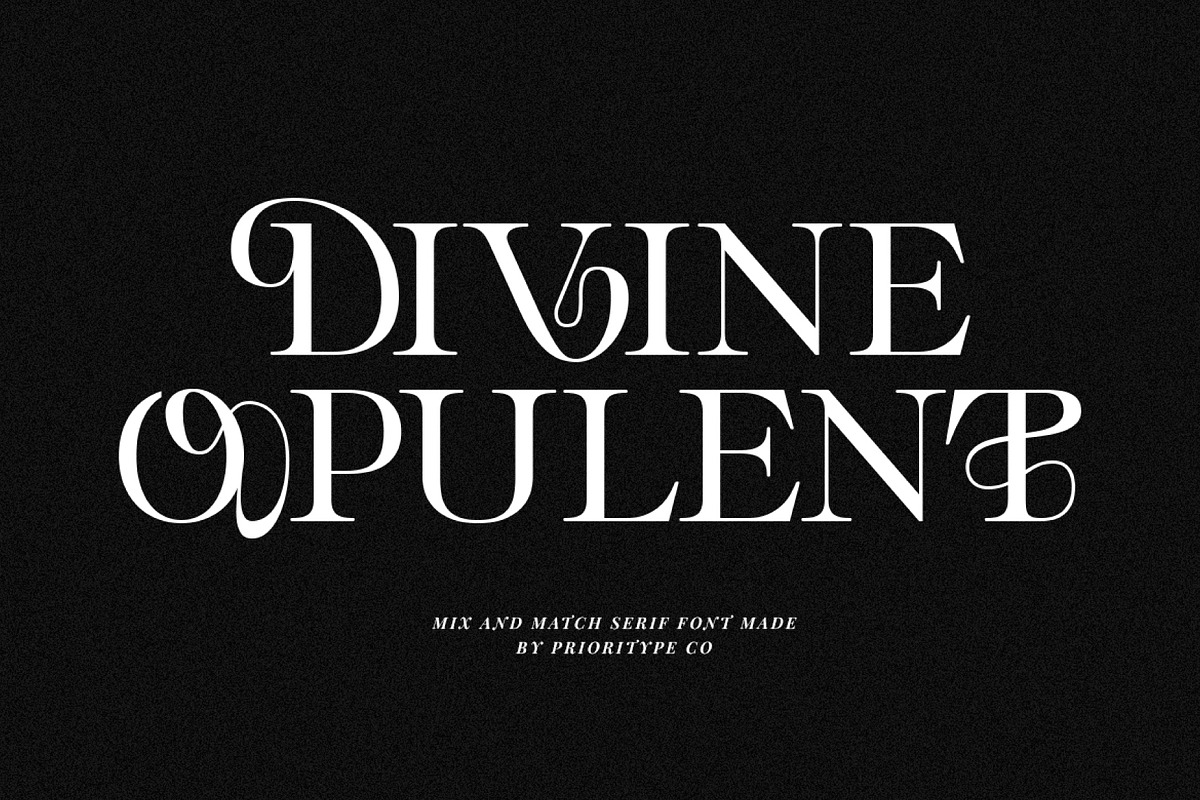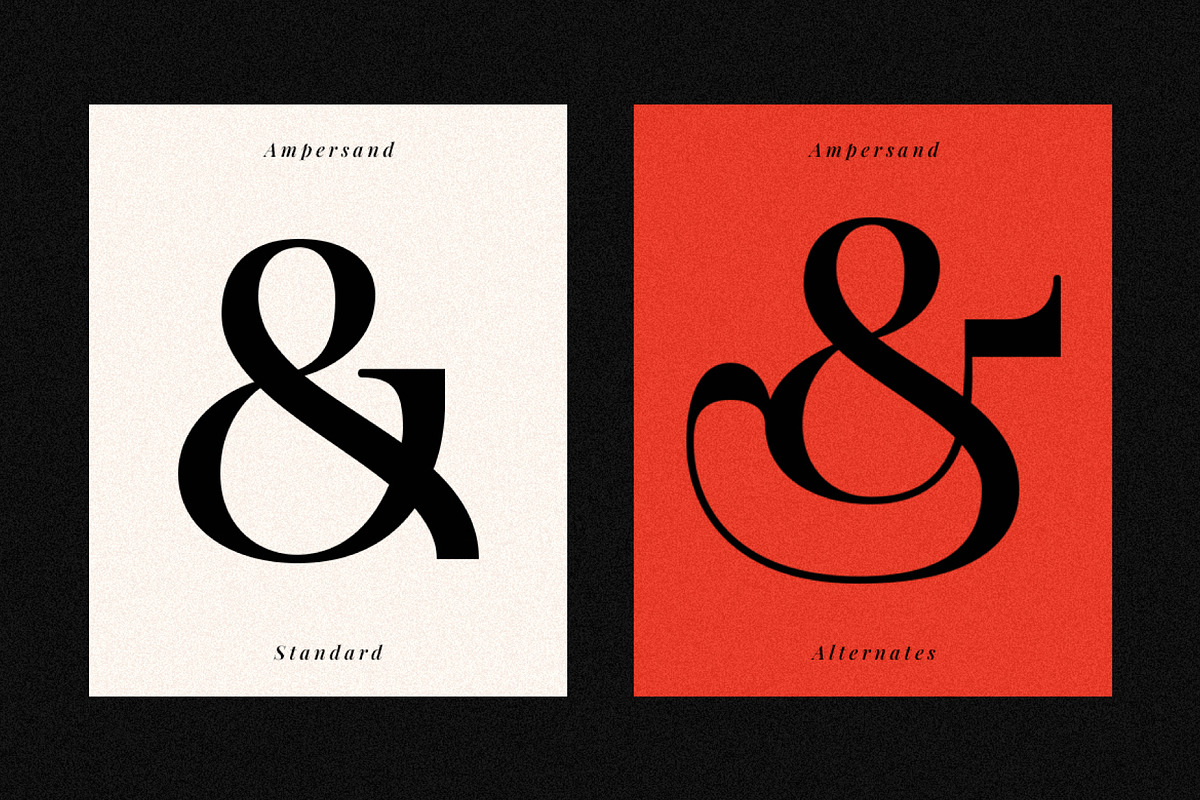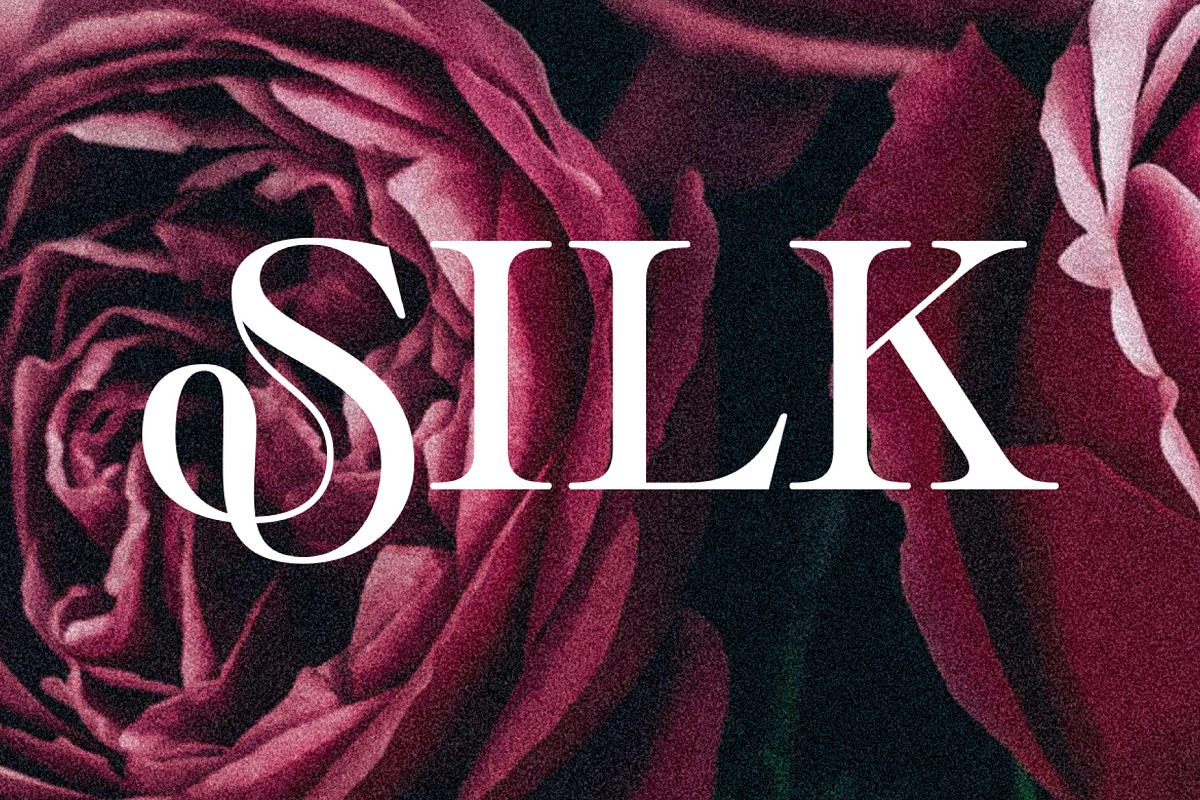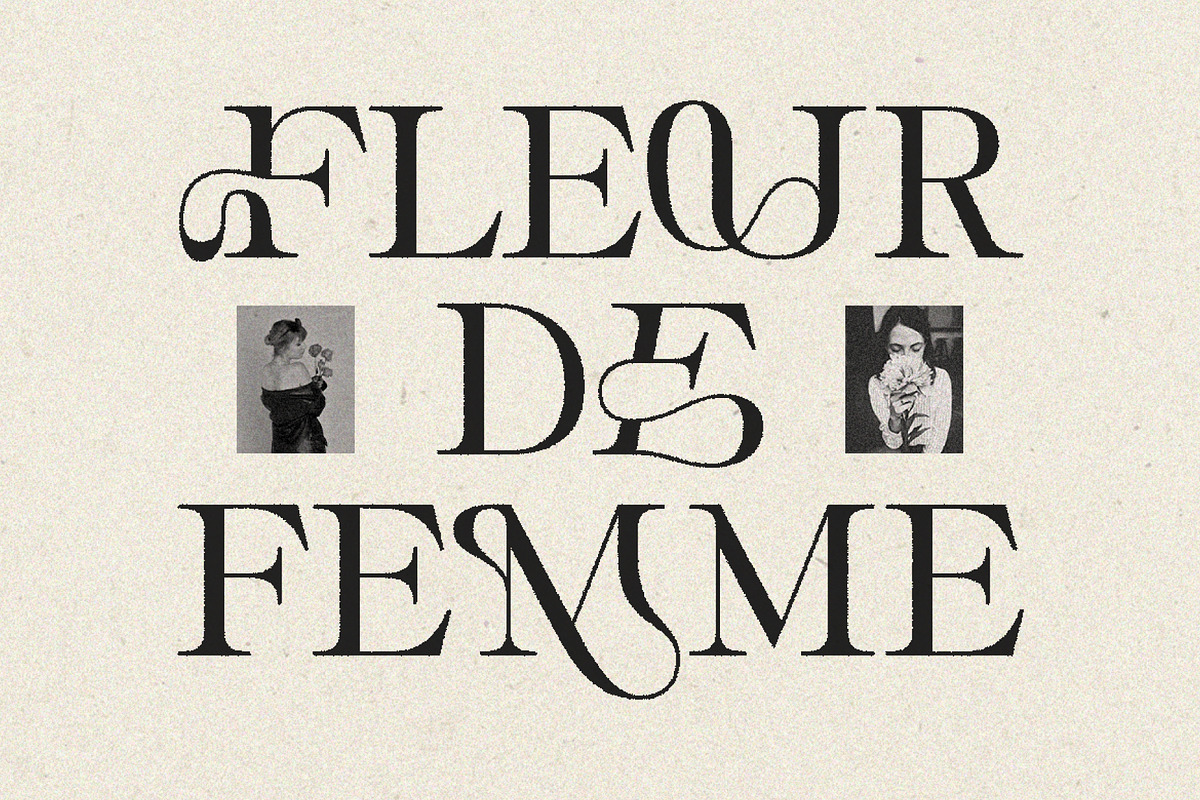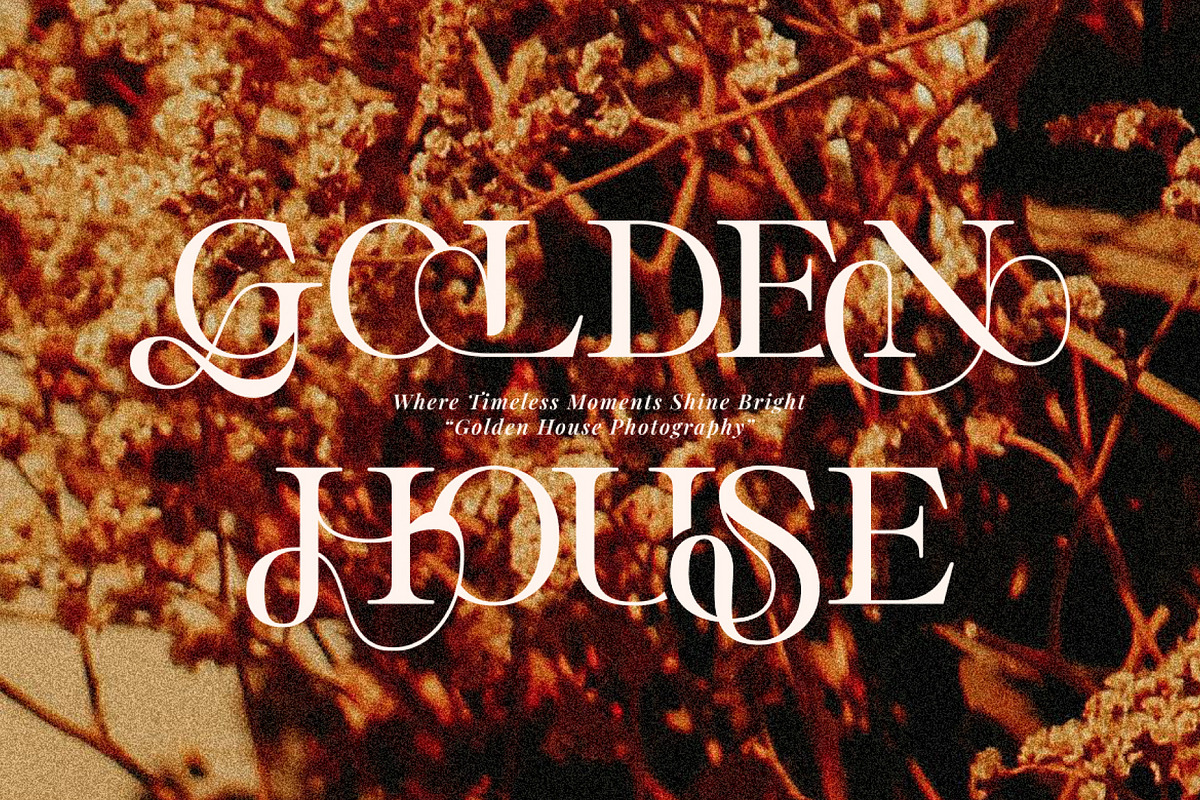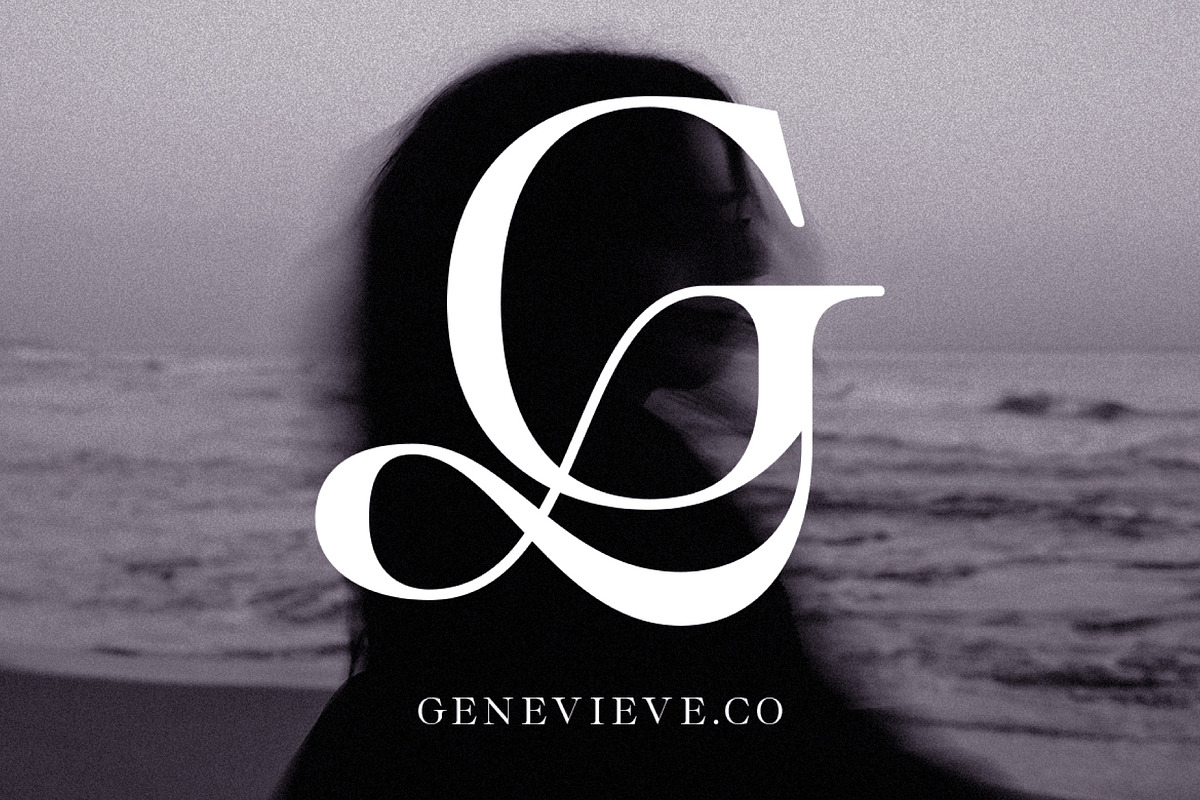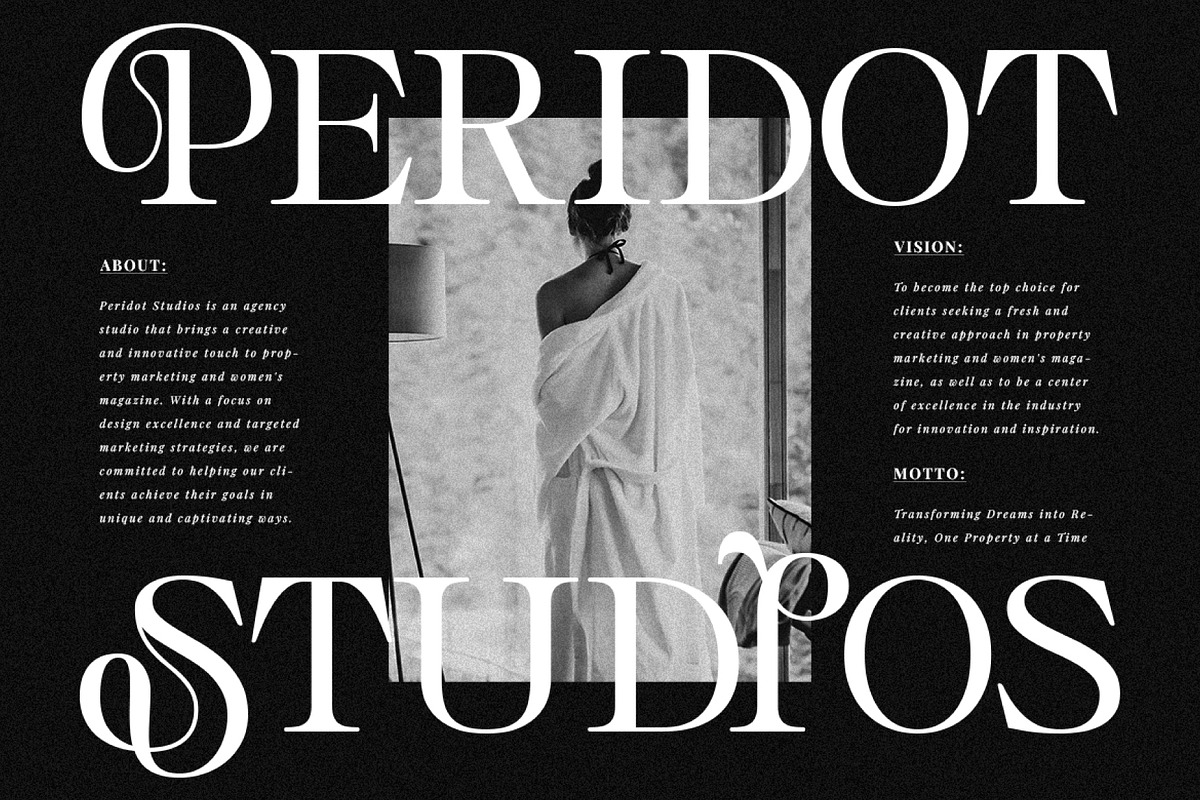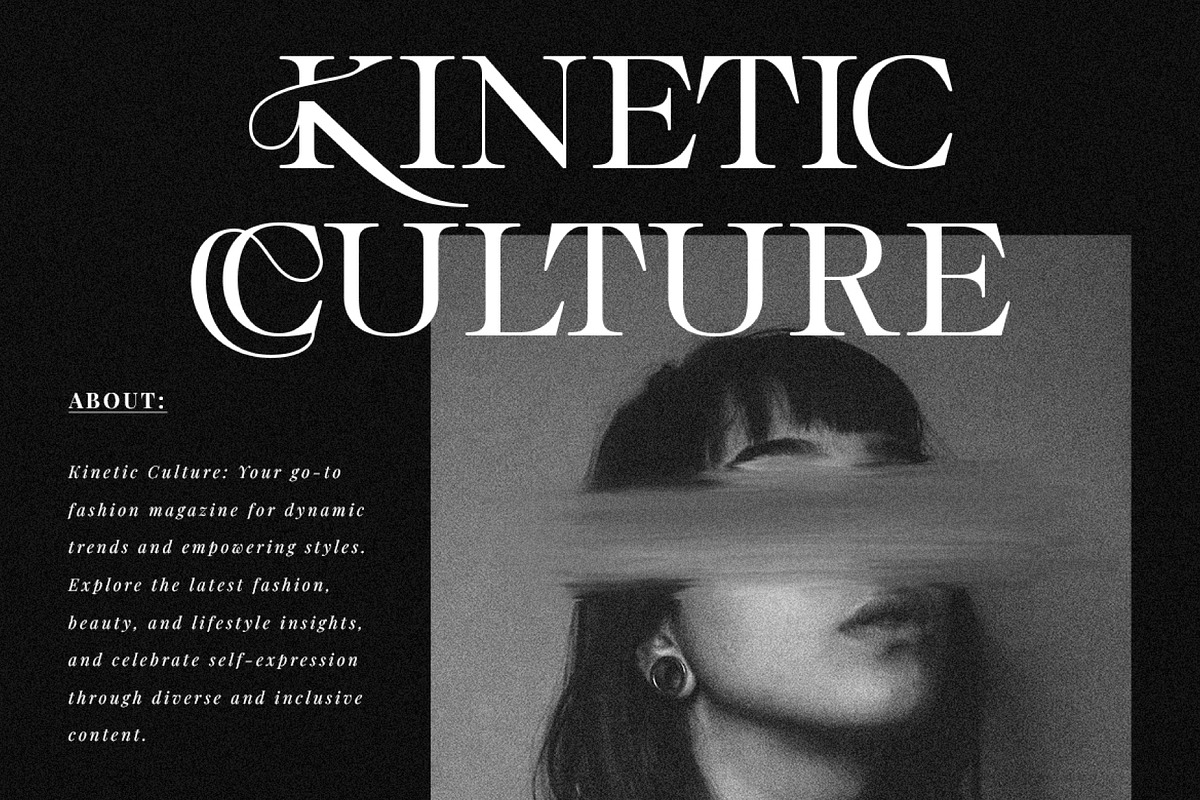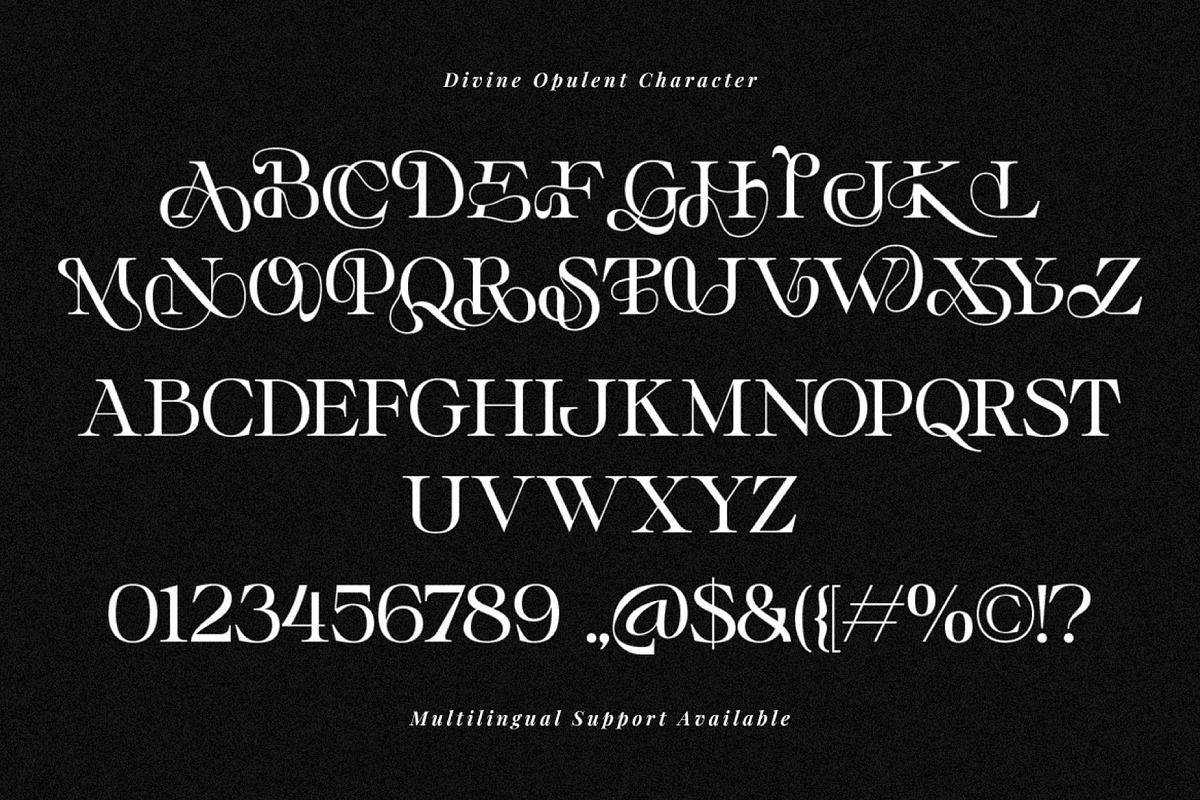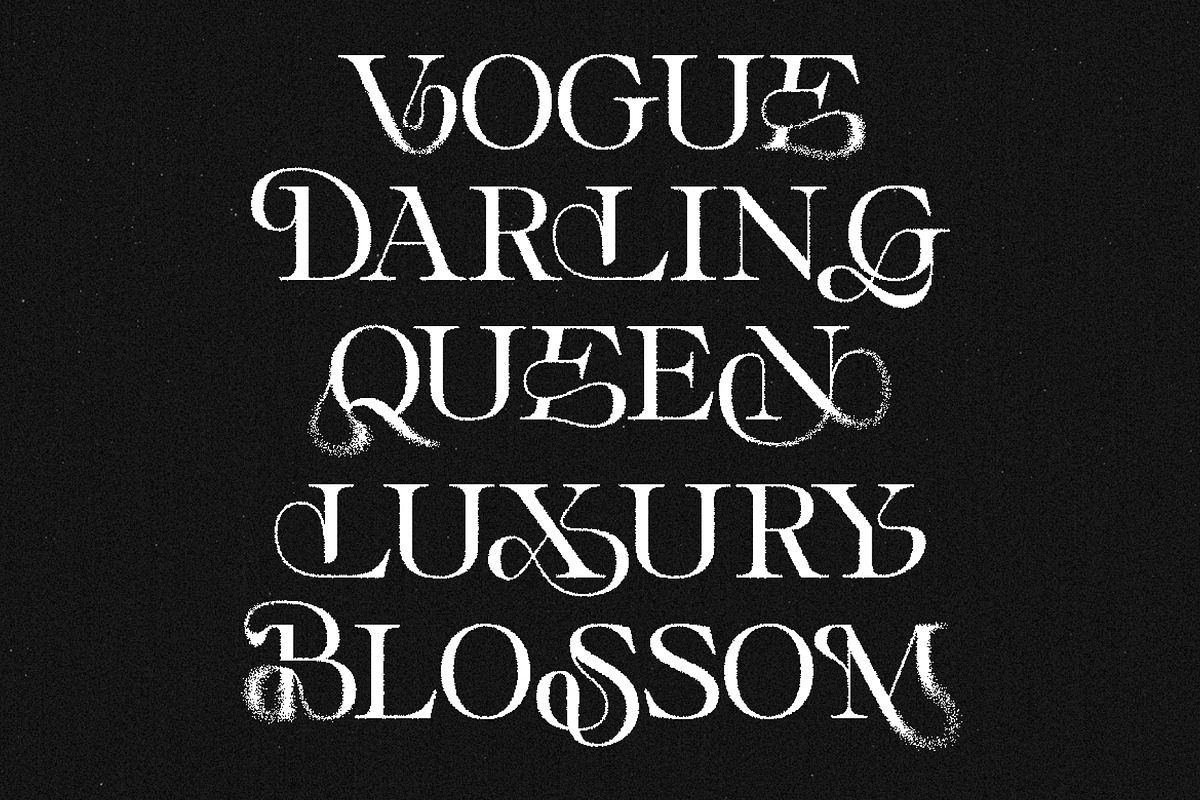
Divine Opulent - Display Serif
Divine Opulent is a serif display font that mixes and matches different uppercase and lowercase letters. This is where the aesthetic value is. It is very possible to design posters, logos, branding and so on. Play with these letters!
- Features: Uppercase, Lowercase, Numeral, Punctuation & Multilingual.
- Multilingual contained: Afrikaans, Albanian, Asu, Basque, Bemba, Bena, Breton, Catalan, Chiga, Cornish, Danish, Dutch, English, Estonian, Filipino, Finnish, French, Friulian, Galician, German, Gusii, Indonesian, Irish, Italian, Kabuverdianu, Kalenjin, Kinyarwanda, Luo, Luxembourgish, Luyia, Machame, Makhuwa-Meetto, Makonde, Malagasy, Manx, Morisyen, North Ndebele, Norwegian Bokmål, Norwegian Nynorsk, Nyankole, Oromo, Portuguese, Quechua, Romansh, Rombo, Rundi, Rwa, Samburu, Sango, Sangu, Scottish Gaelic, Sena, Shambala, Shona, Soga, Somali, Spanish, Swahili, Swedish, Swiss German, Taita, Teso, Uzbek (Latin), Volapük, Vunjo, Zulu.